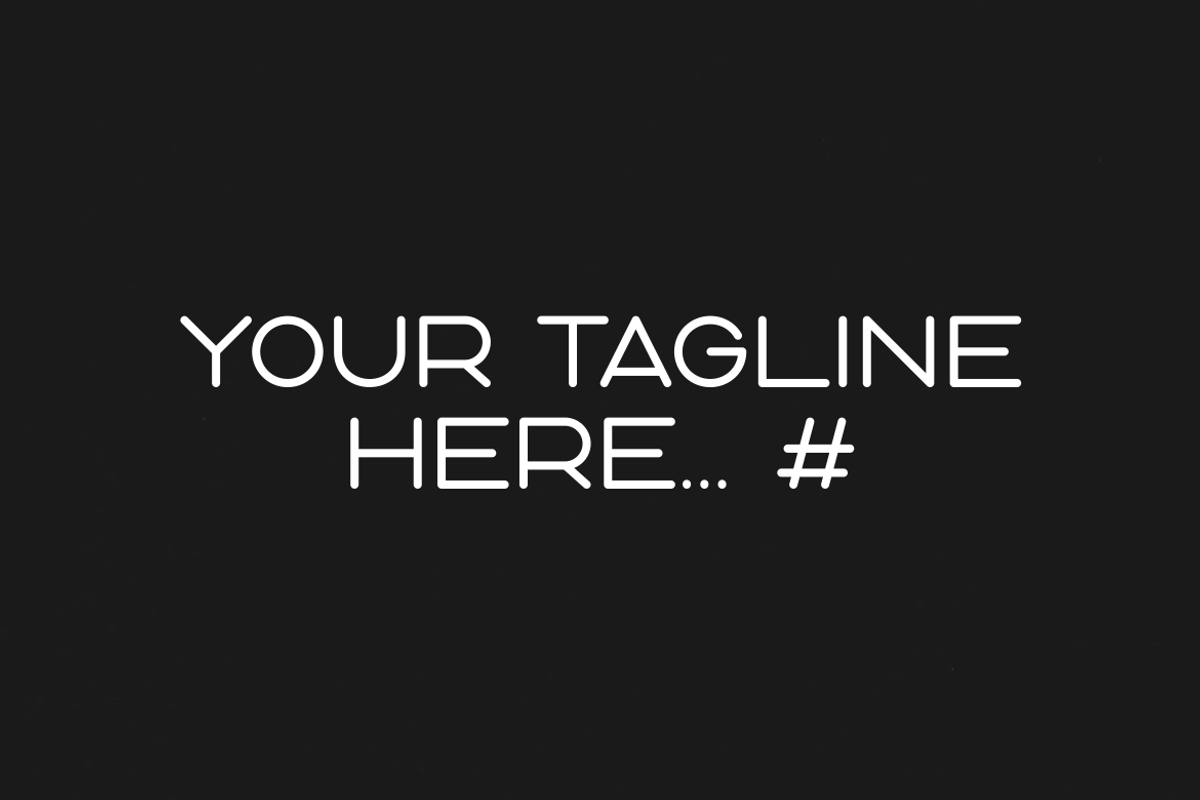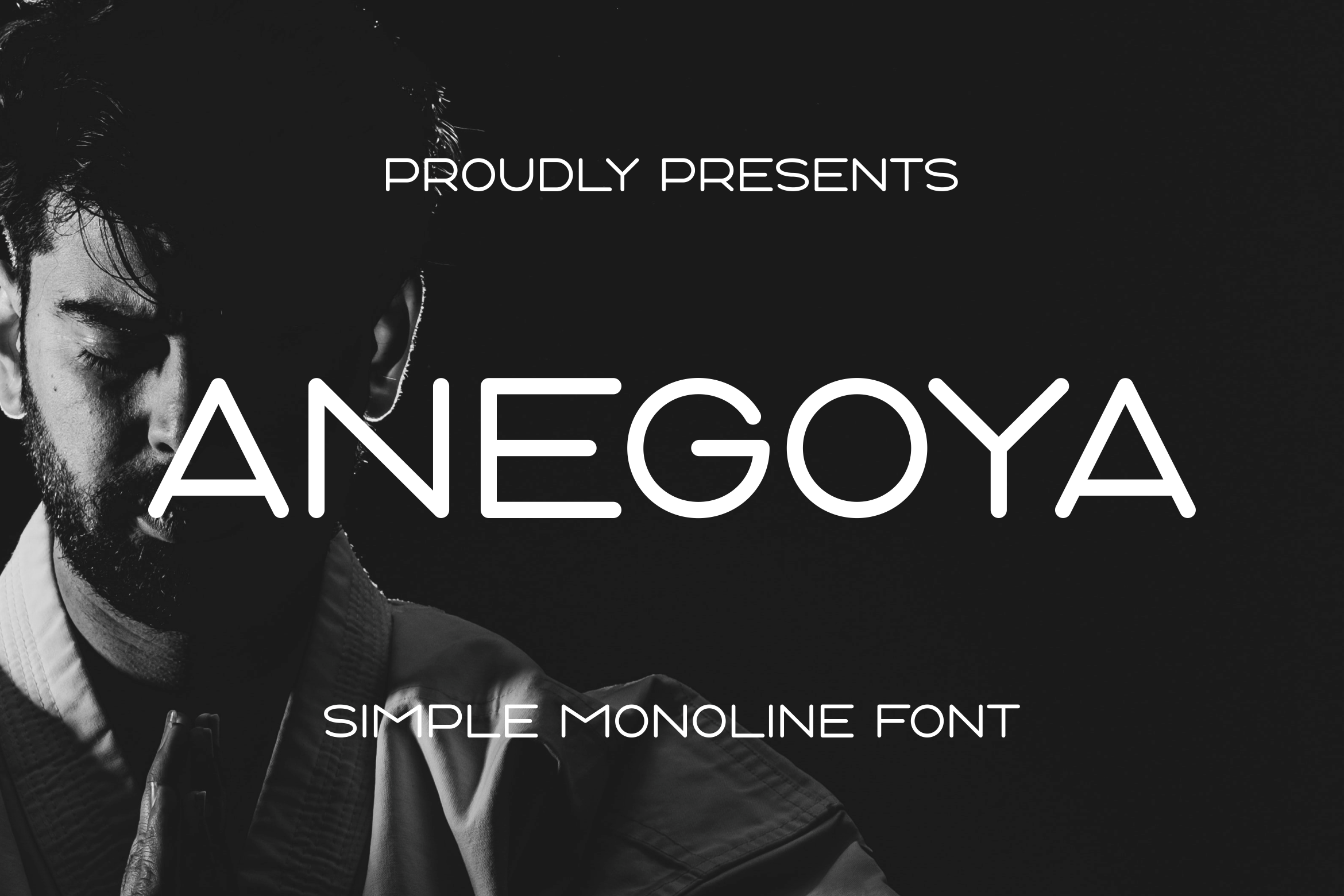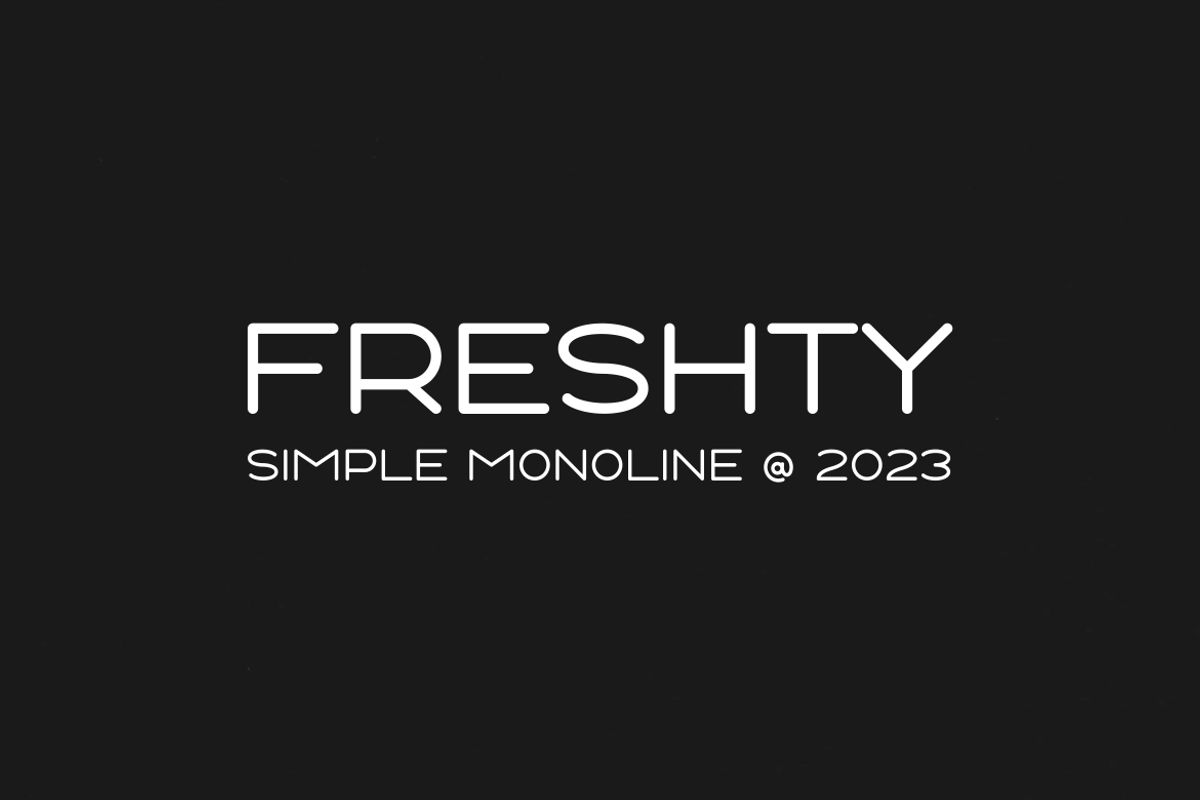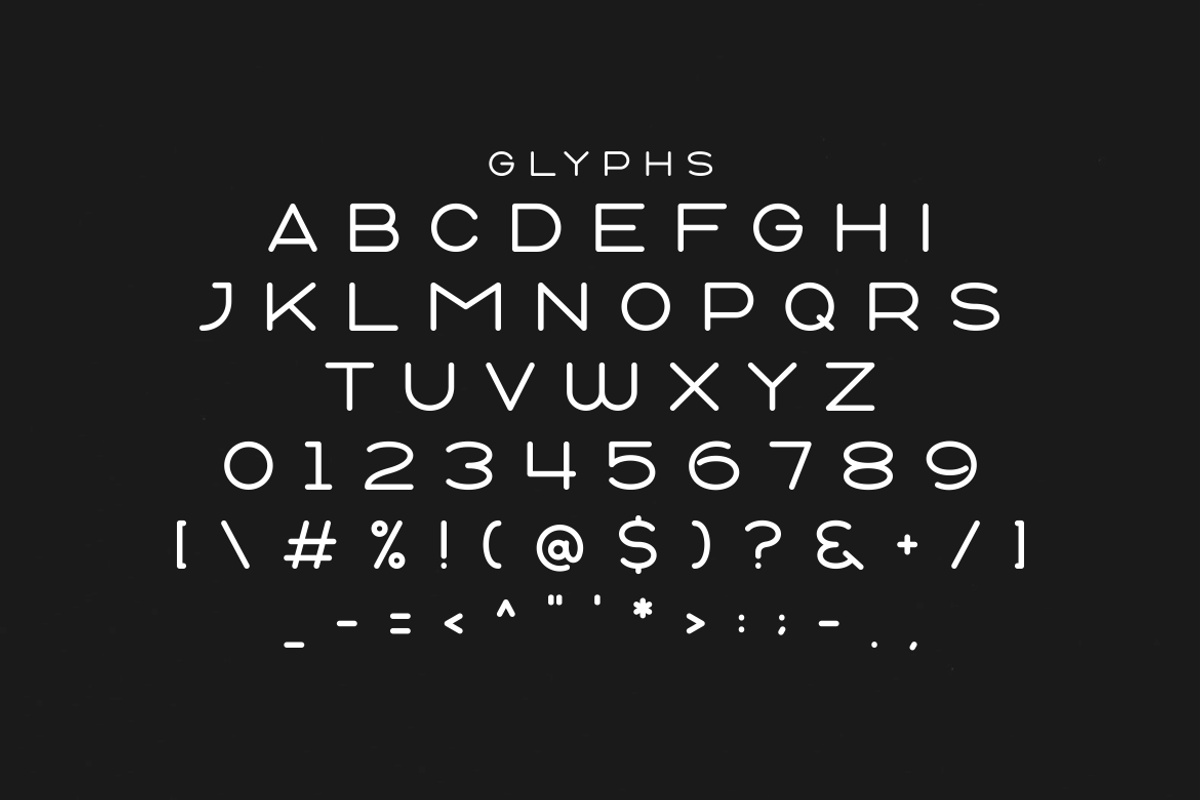
Anegoya simple Uppercase Font
Discover the unique aesthetic of Simple Monoline Rounded Corner font. A winning combination of simplicity and elegance, this font features exclusively uppercase glyphs. With its minimalist monoline style and delicately rounded corners, it promises a clean, sleek look. Every character is naturally easy to read, promising seamless comprehension for your visual communication. Revel in the harmonious blend of simplicity and style that this font brings to your creative projects.